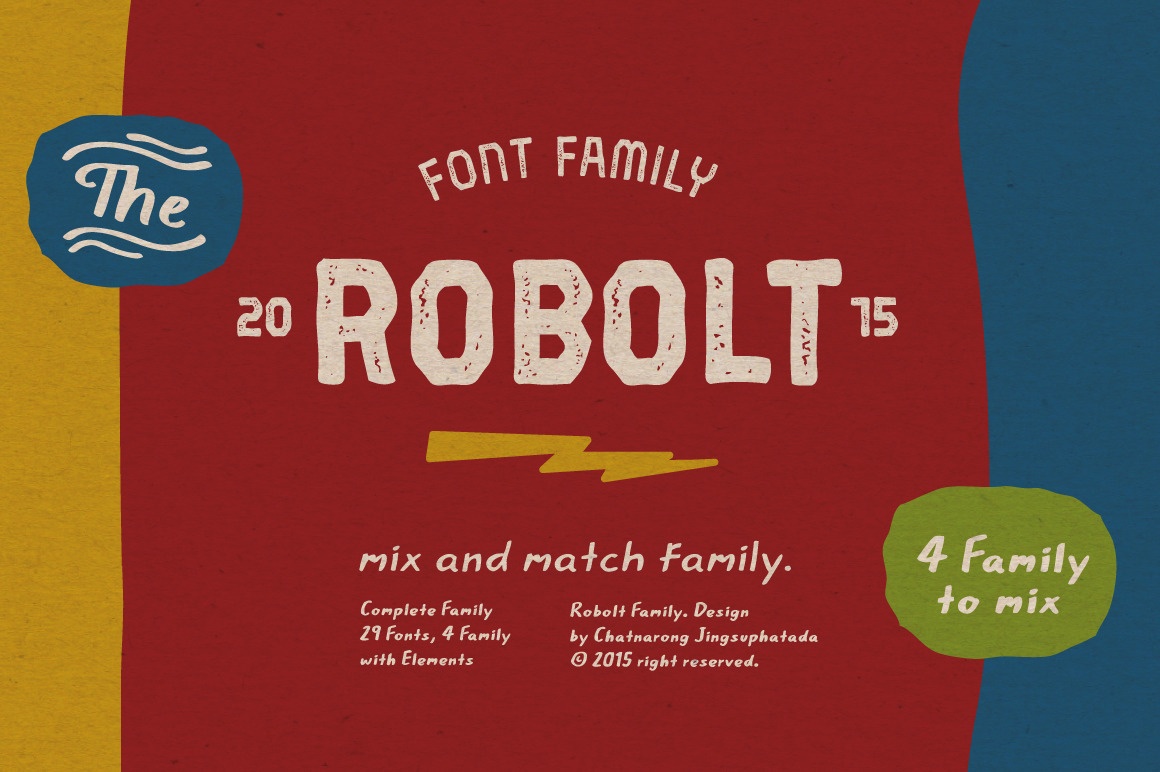
Robolt Font
It starts with the idea that different things can be mixed infinitely. Robolt comprises four designs with multiple options to add variety and playfulness. Battery and Machine have a retro touch which reminds one of toy labels from the 80’s while Vintage is rendered a Didot style with different textures to choose. Streamlined Handdrawn style is nicely put in contrast with the solid types. Elements are also available to complement the letters. The set is made up of 29 letters of four families to serve your creativity.
Font Family Battery100v, Battery200v, Battery300v, Battery Hand100v, Battery Hand200v, Battery Hand300v, Battery Rust200v, Battery Rust300v,Battery Oxide200v, Battery Oxide300v, Battery Acid, Battery Carbon, Vintage, Vintage Line, Vintage Outline, Vintage Rust, Vintage Wood, Machine100, Machine200, Machine300, Machine Cutting, Machine Bar, Machine Press, Hand Bold, Hand Regular, Hand Light, Hand Bold Italic, Hand Light Italic, Element